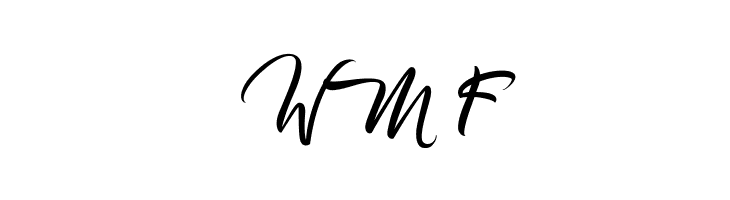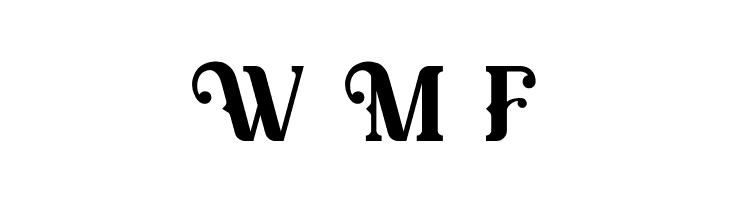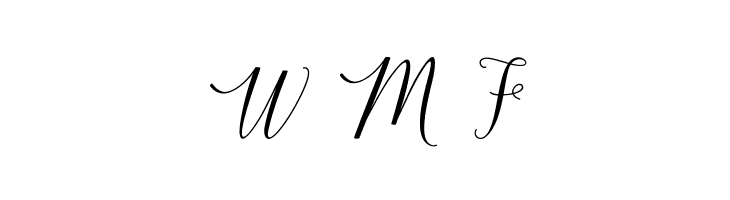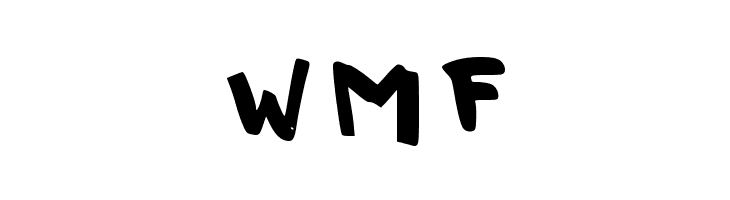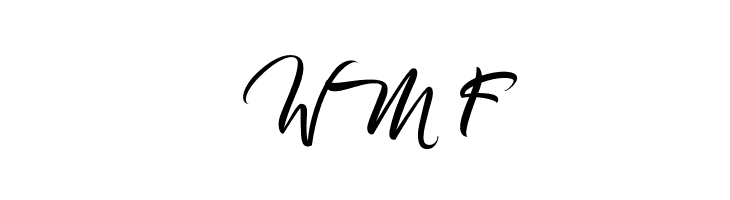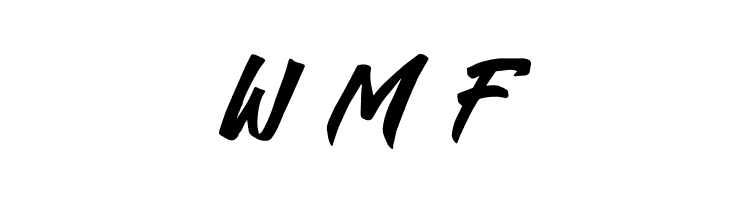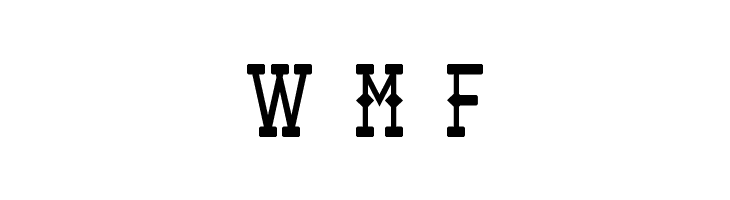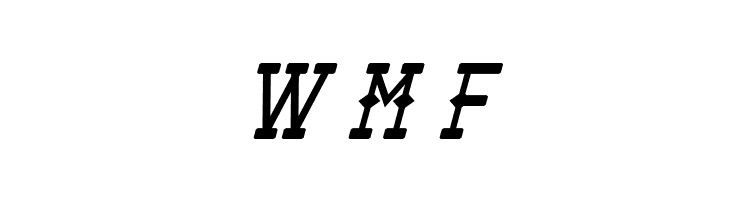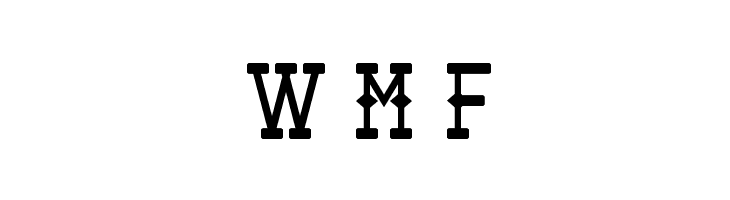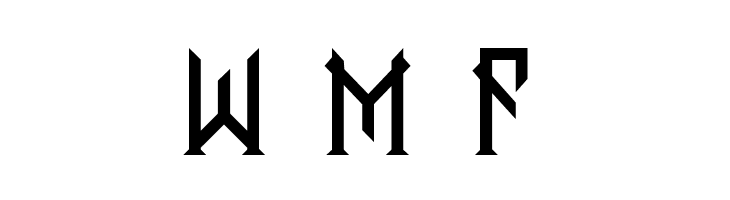
A bold, brush-style font with dynamic, slanted strokes and sharp angles.
An elegant script font with fluid, graceful strokes and calligraphic flair.
A bold, angular font with a gothic, geometric style.
A playful, bold font with a hand-drawn, whimsical style.
A dynamic, cursive script font with bold, sweeping strokes and elegant flourishes.
A flowing, elegant script font with bold, cursive strokes and artistic flourishes.
A bold, decorative font with vintage-inspired, ornate details.
A bold slab serif font with strong, block-like serifs and uniform width.
A bold, slab serif font with strong geometric shapes and thick strokes.
A bold, italic font with thick strokes and a dynamic, slanted style.